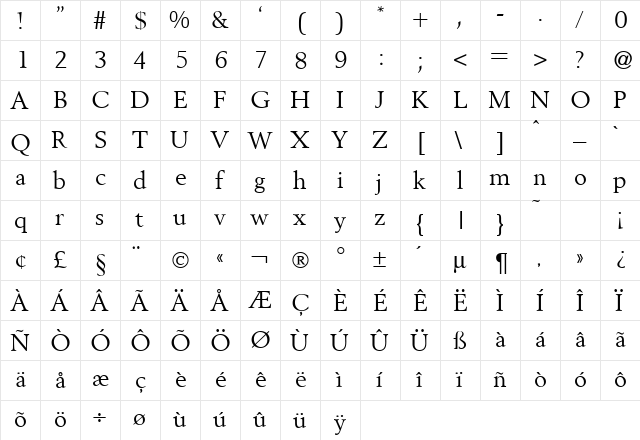
BergoniaDB Normal
Design Context for BergoniaDB Typeface
BergoniaDB takes a measured approach to typography — its balanced proportions and neutral character make it a reliable workhorse for both digital and print work.